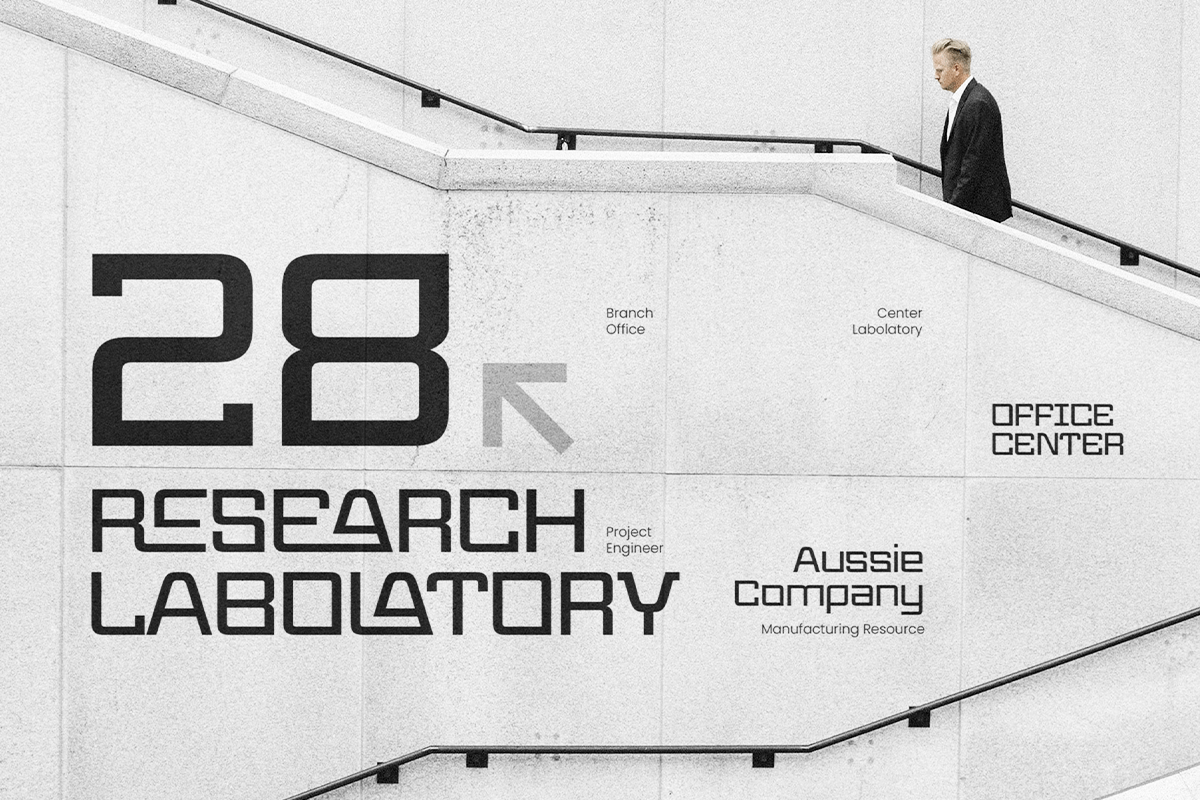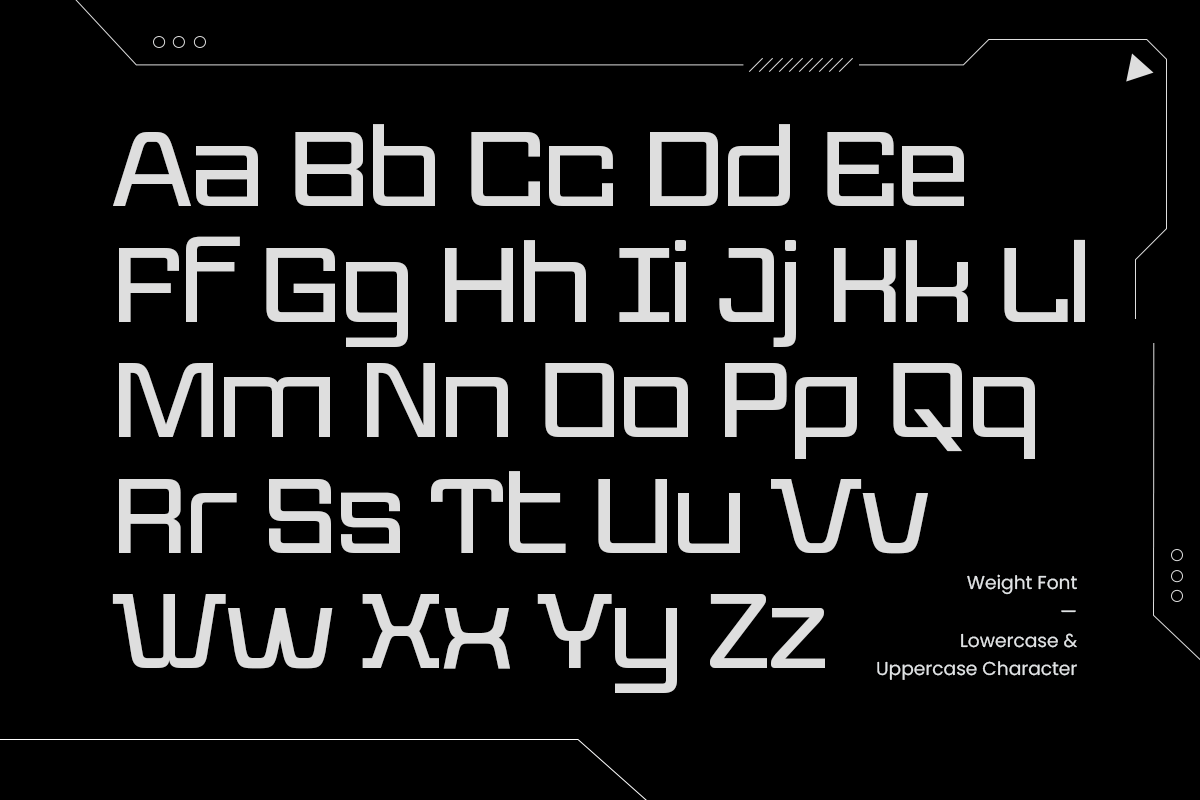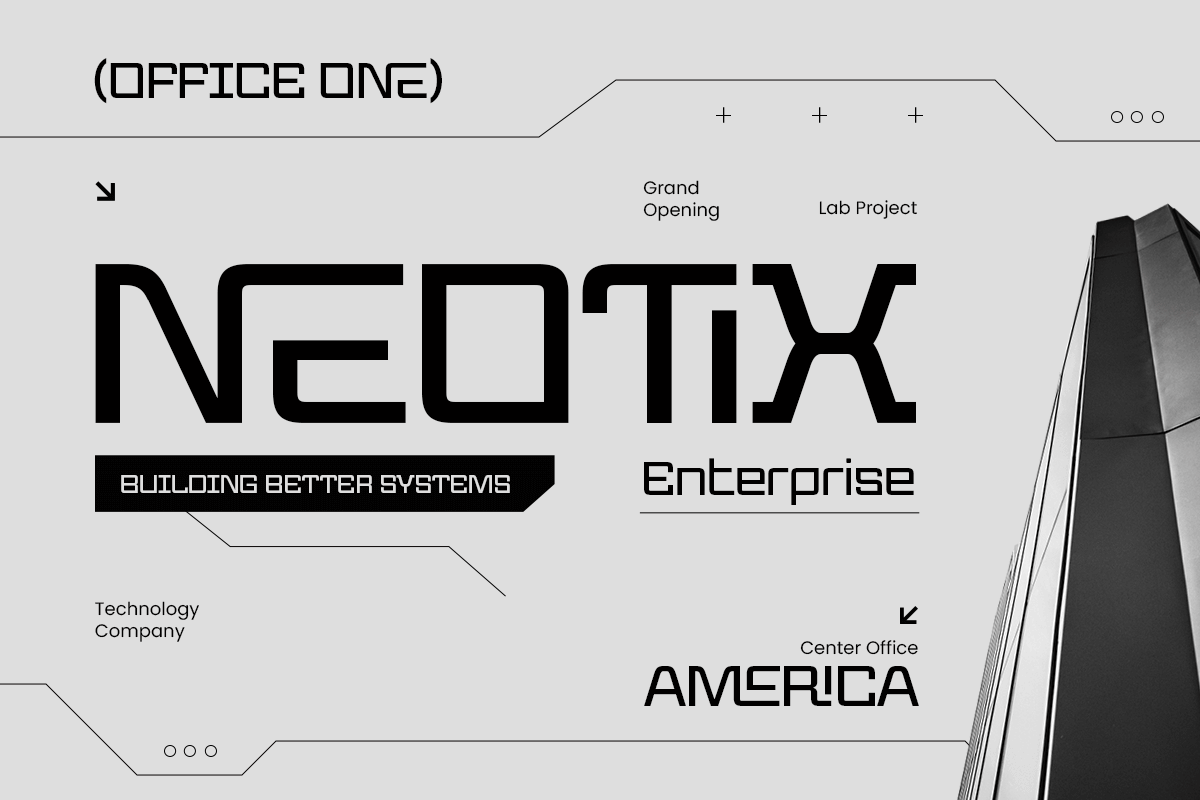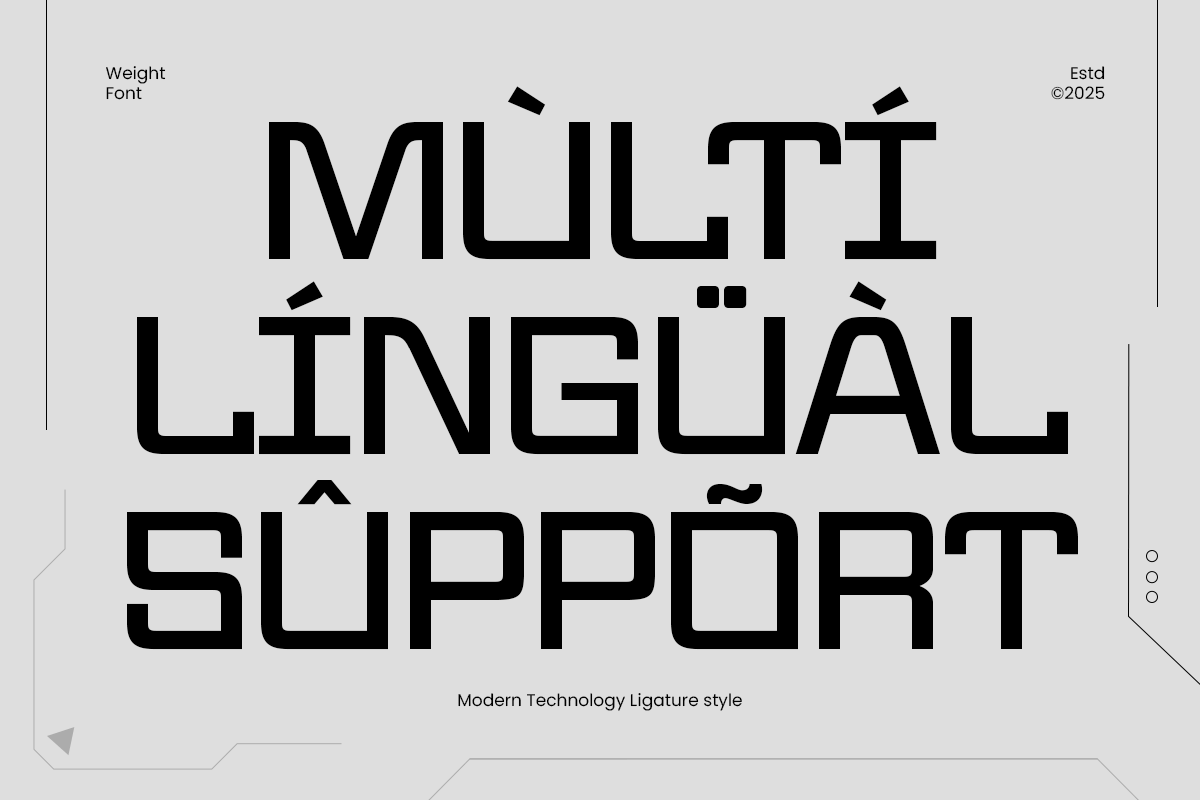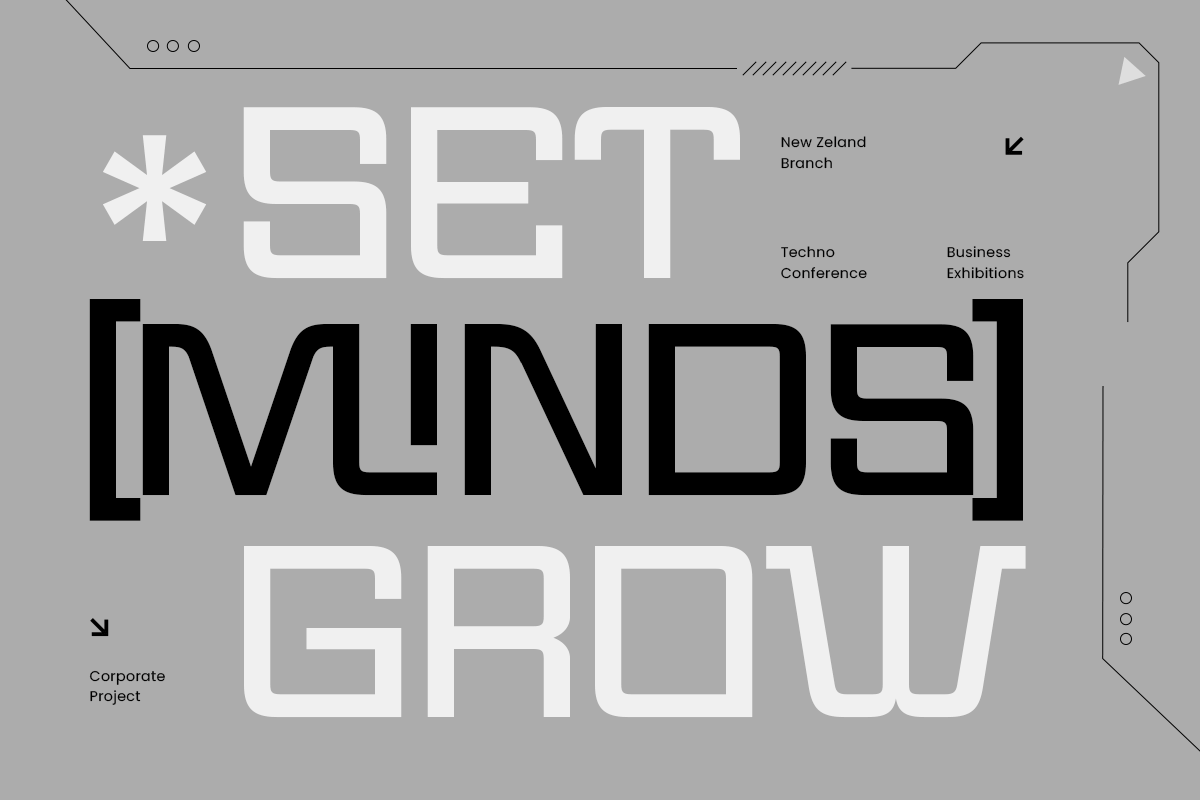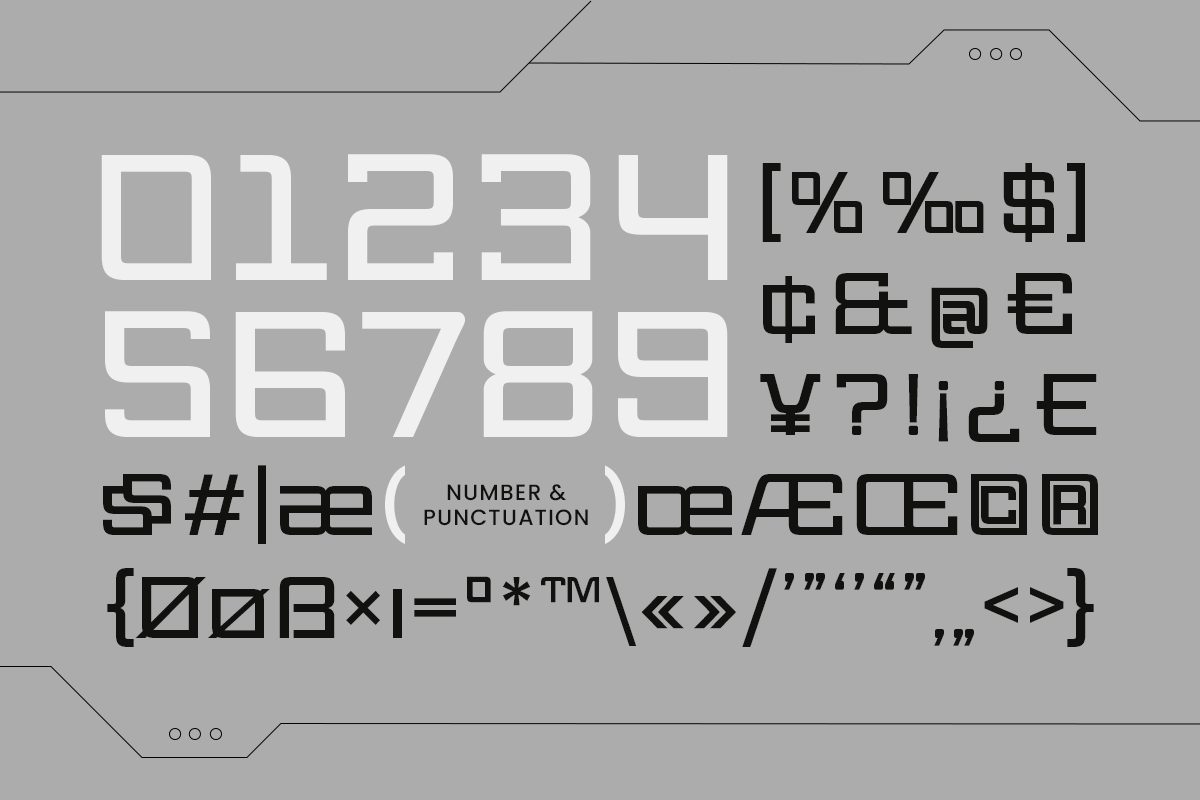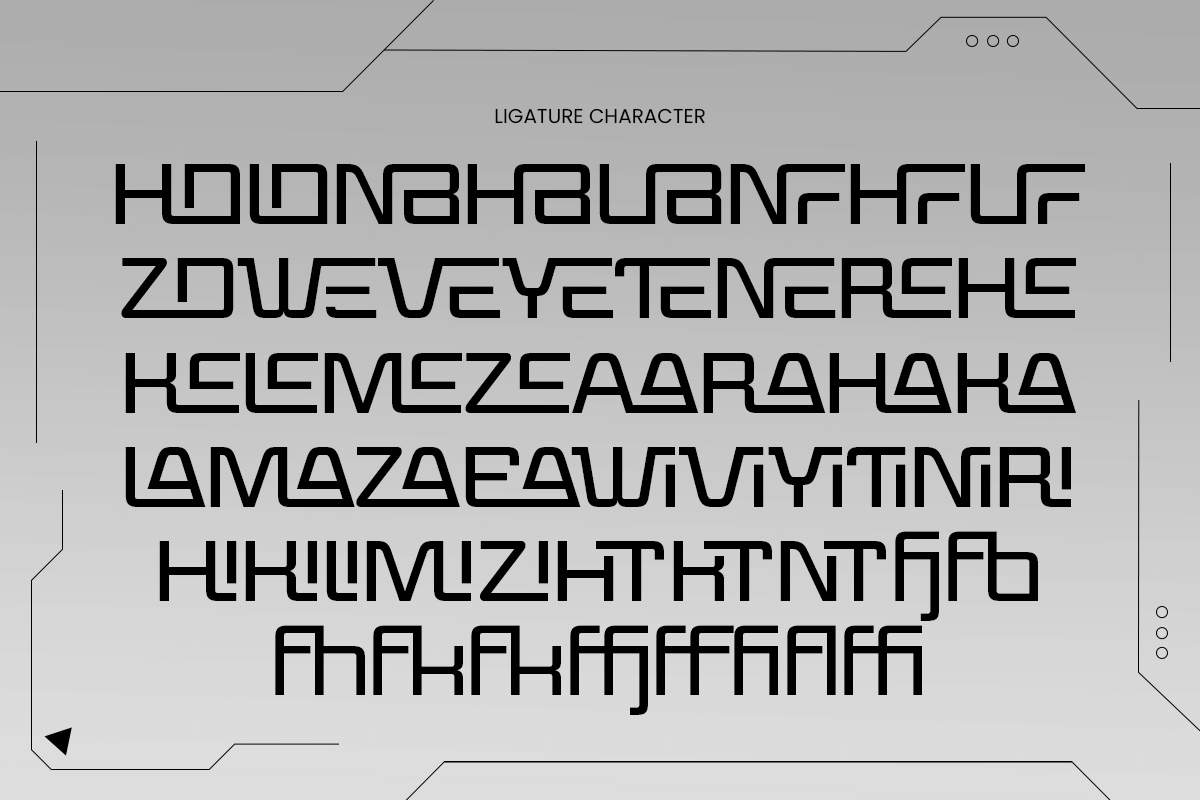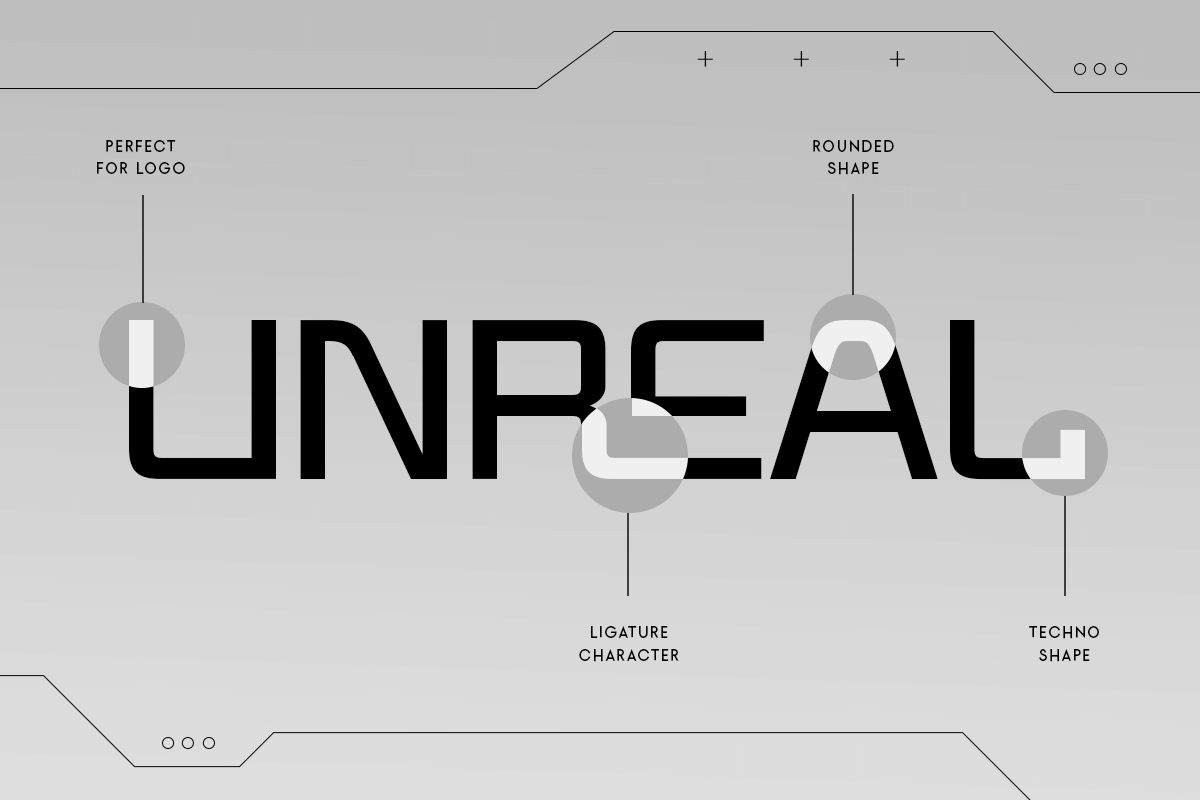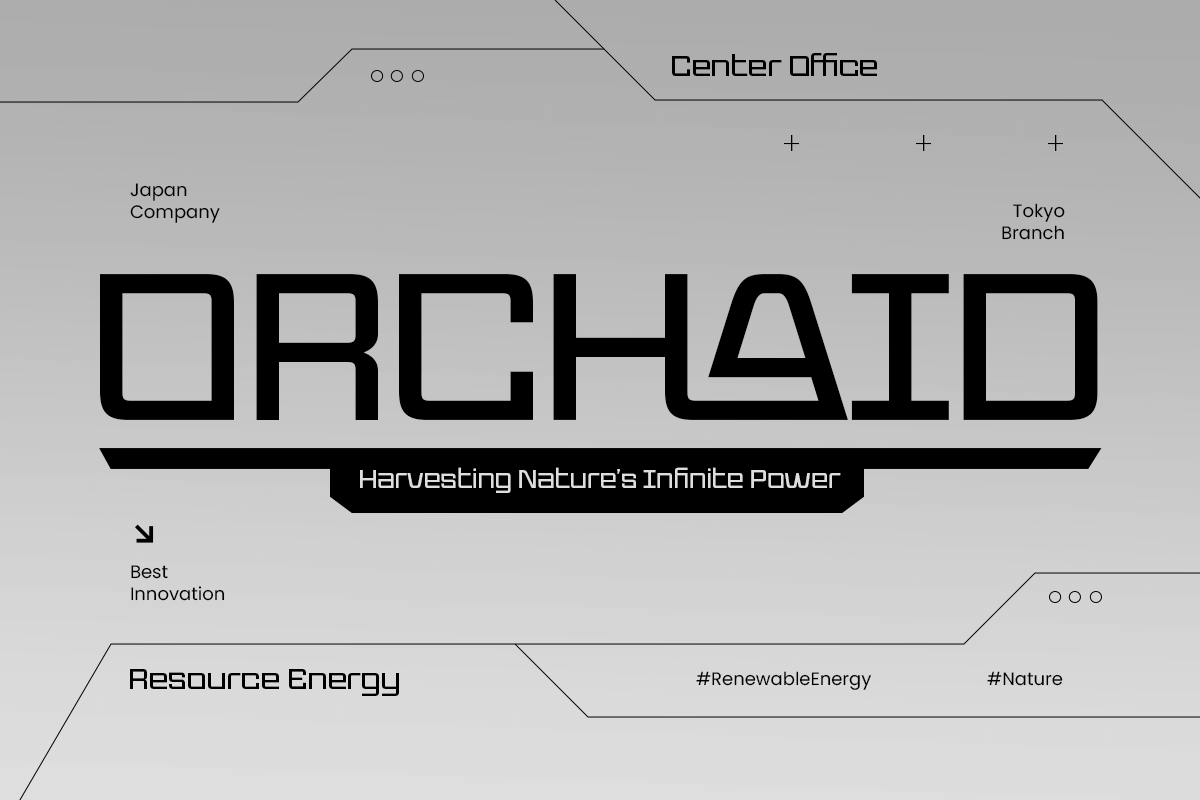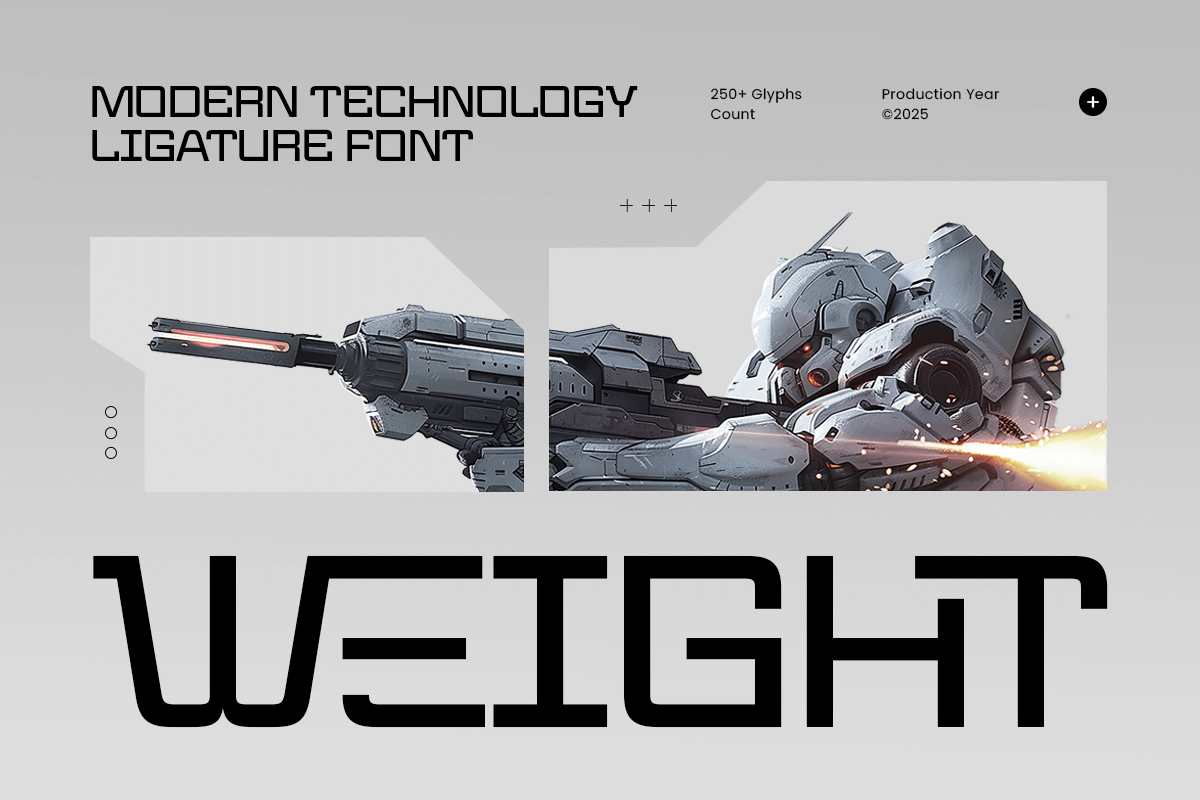
Weight - Modern Technology Font
Weight – Modern Technology Ligature Font
Weight is a sleek modern technology font featuring stylish ligatures, clean geometry, and a futuristic visual identity. Designed for tech branding and innovative digital products, Weight offers sharp precision and a refined structure that enhances logos, UI/UX layouts, app interfaces, product packaging, and corporate visuals.
Its advanced ligature designs create smooth, connected forms that deliver a premium and innovative typographic experience. Weight is perfect for startups, software companies, hardware brands, IT services, and creative studios seeking a strong, modern, and highly professional font to represent their technology-focused identity.
Weight – Modern Technology Ligature Font Features:
* Modern geometric style with refined custom ligatures
* Perfect for technology logos, digital branding, and products
* Complete uppercase, lowercase, numerals, and punctuation
* Clean minimalist shapes with balanced spacing
* Ideal for futuristic branding and high-tech visual communication
Define a forward-thinking identity with Weight – the modern ligature font designed for tech innovation.